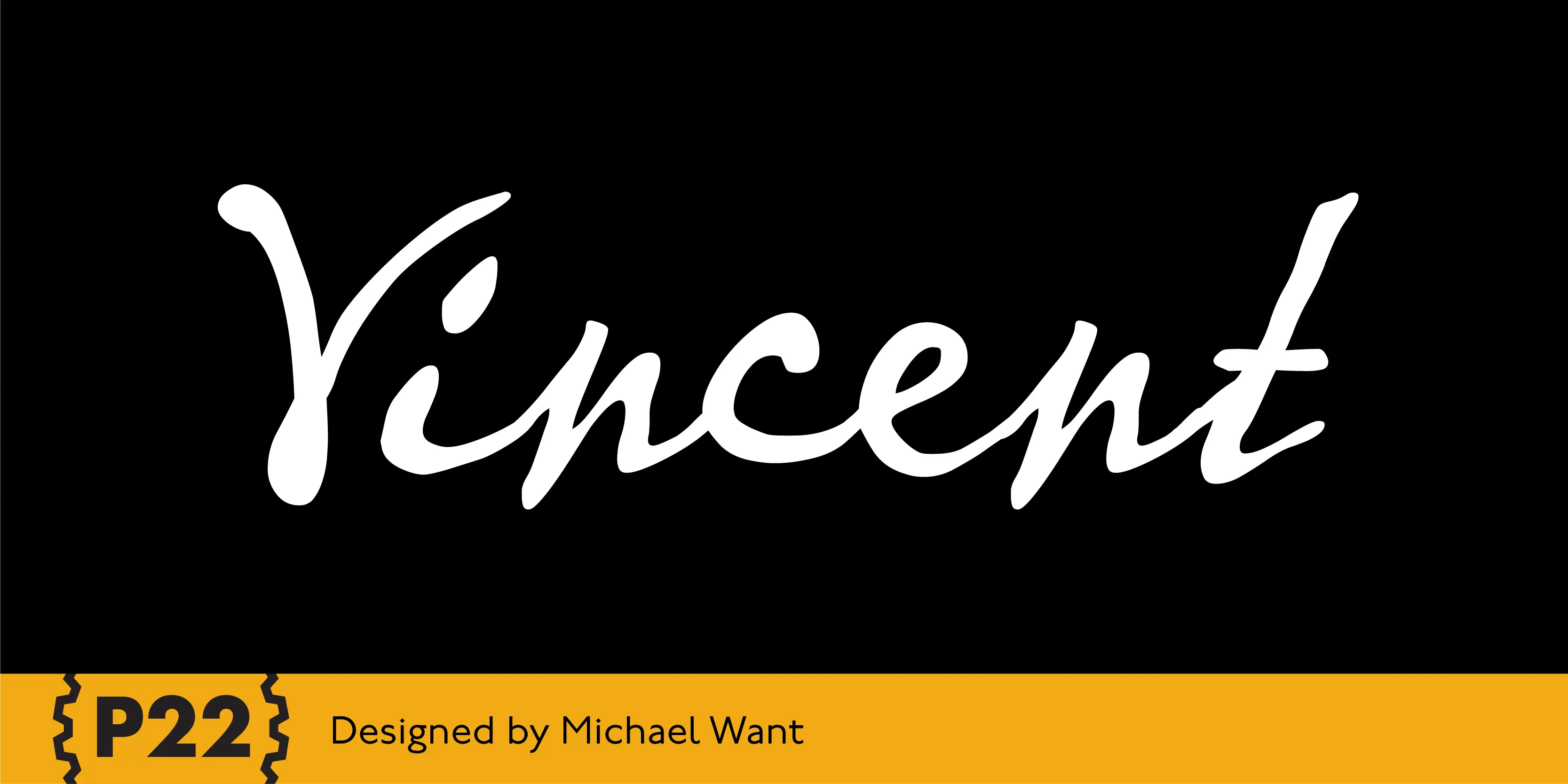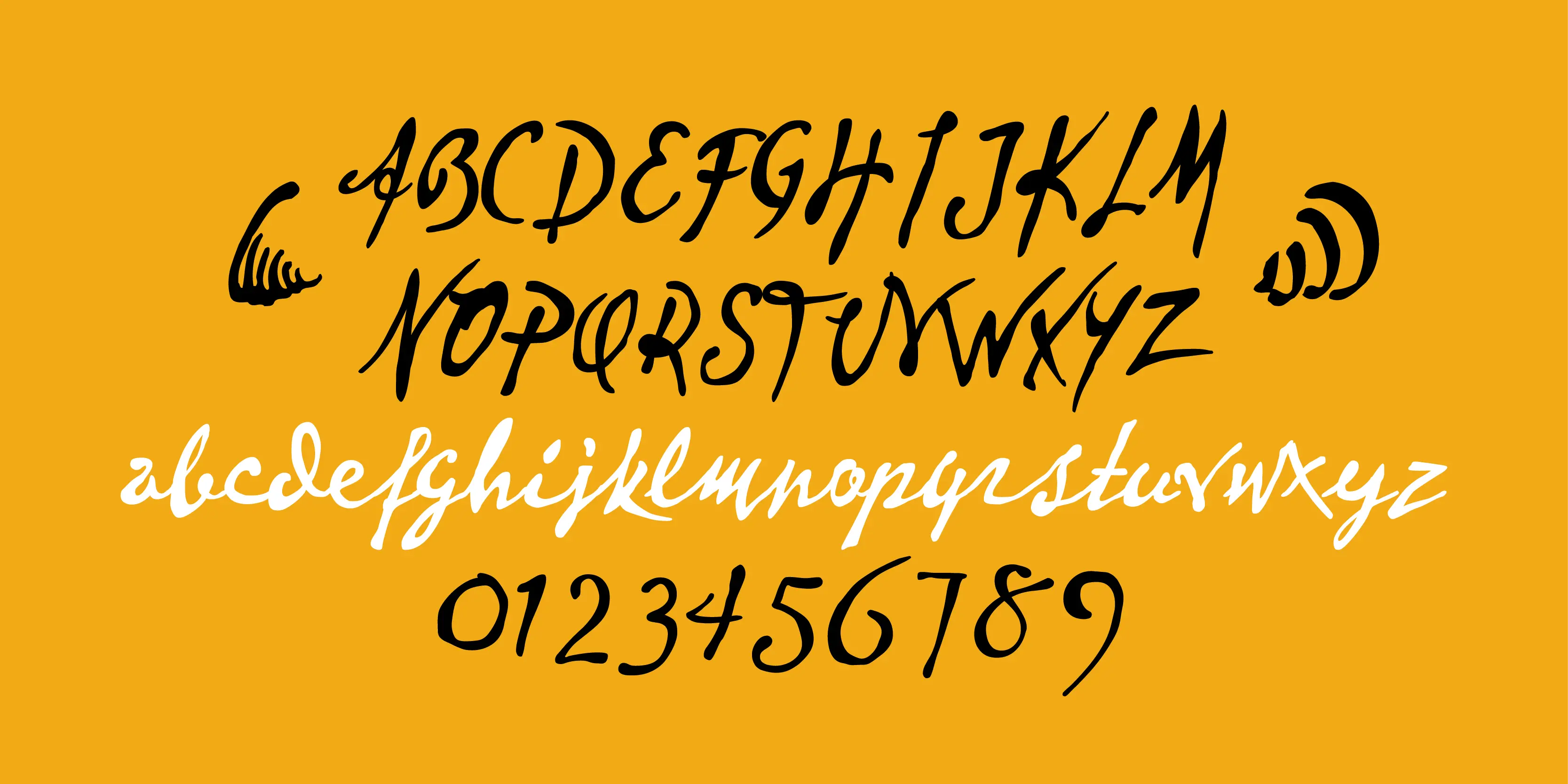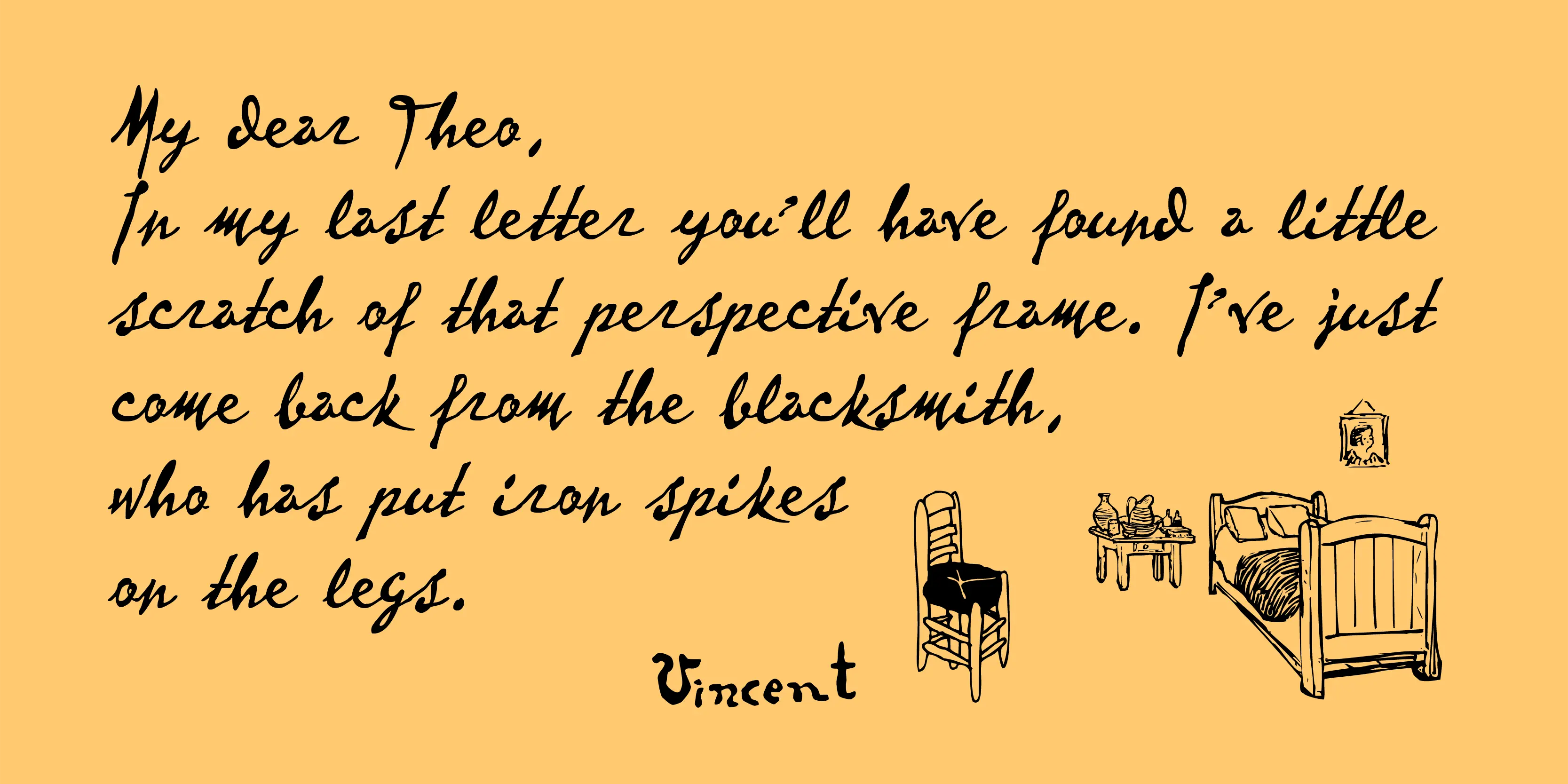
Vincent Font Family
Vincent
This set is inspired by the work of Vincent van Gogh. The alphabet captures the essence of van Gogh’s handwriting style, using his extensive correspondence with his brother Theo as the primary reference. This lettering style presents a bold brush-stroke appearance which bears striking similarities to the painting style of Van Gogh. A full international charcter set is featured. The Extras feature selected imagery from van Gogh’s drawing and paintings.
- Common Ligatures